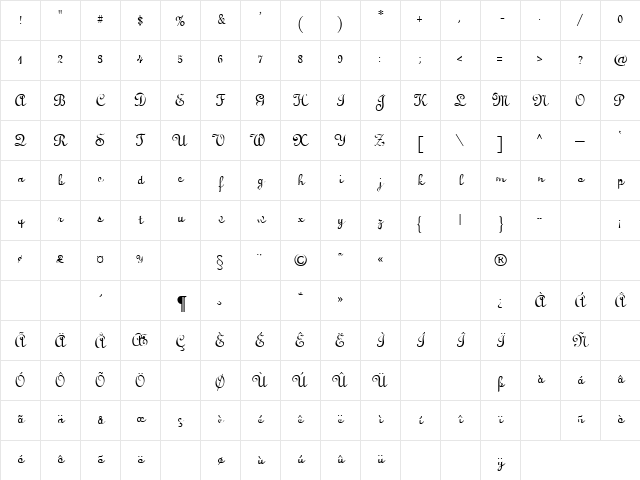
Complete Visitation Rights 1 Regular glyph index. Displaying only characters natively supported by Visitation Rights 1 Regular font.
Visitation Rights 1 is a composed and adaptable typeface that performs quietly and consistently across a wide range of design contexts.